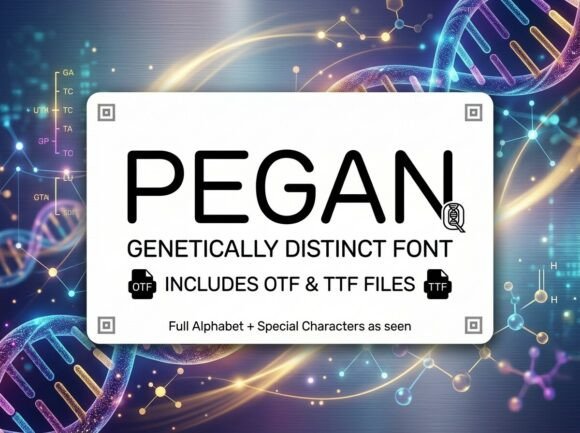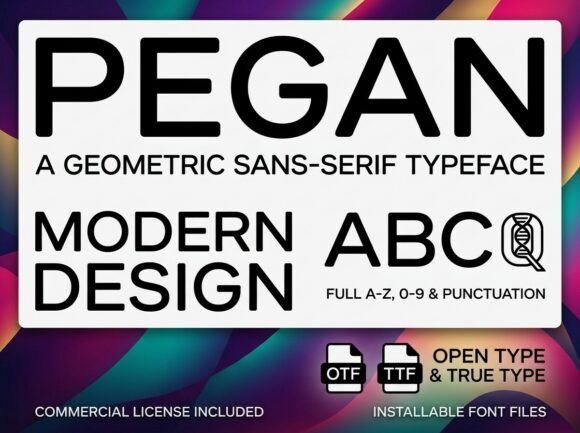
Introduction to Pegan Font
Remember that moment when you’re working on a design project and you just can’t seem to find the perfect font to capture the essence of your idea? The struggle is real, but what if I told you that there’s a font that’s specifically designed to convey a sense of scientific innovation and high-tech sophistication? Enter Pegan Font, a game-changing typeface that’s about to revolutionize the way you approach your next creative project.
As a designer, you know how crucial it is to have a high-quality design resource that can elevate your work to the next level. Pegan Font is that resource, offering a unique blend of clean, sans-serif letterforms and integrated DNA helix icons and molecular symbols that add a touch of sophistication to any design. Whether you’re working on a pharmaceutical packaging project or a high-impact social media header, Pegan Font is the perfect choice.
Pegan Font Key Features
- High-quality, professional font design ideal for creative projects and design resources.
- Designed to be highly legible and versatile, suitable for a wide range of applications and resolutions.
- Includes multiple font weights and styles, providing flexibility for designers and artists.
- Perfect for designers and artists working on creative projects, offering a unique and stylish design element.
Honest Review: Pegan Font
As a designer, I’m always on the lookout for high-quality design resources to elevate my creative projects. The Pegan Font is one such resource that caught my attention, and I’m excited to share my honest review with you.
What works well: ✨ The Pegan Font offers a sleek and modern design aesthetic that’s perfect for digital and print projects. The font is highly legible, making it an excellent choice for body text and headings. I also appreciate the fact that it comes with a transparent background, allowing for seamless integration with any design element.
Overall impression: The Pegan Font is a solid choice for designers looking for a high-quality, free design resource. While it may not be perfect, its strengths outweigh its weaknesses, making it a valuable addition to any design library.
- High-quality design aesthetic
- Legible and versatile
Pegan Font
The Pegan Font is a versatile design resource perfect for creative projects. It’s available for free download and features a high-quality, transparent background that makes it easy to incorporate into your design.
Tips for Getting the Most Out of Pegan Font
To get the most out of Pegan Font, use it in combination with other design elements, such as graphics and images. You can also experiment with different font sizes and colors to create a unique visual effect.
The Pegan Font is suitable for a variety of design projects, including:
- Websites and web applications
Alternatives to Pegan Font
Oswald is a popular sans-serif font that is ideal for creative projects requiring a modern and clean look. It is available for free download and is often used for headings and titles. Oswald has a transparent background, making it perfect for overlaying text on images or other design elements. It is a high-quality font that is suitable for various design resources.
Compared to Pegan Font, Oswald has a more geometric and modern feel, making it ideal for projects that require a clean and minimalist look. While Pegan Font is more elegant and sophisticated, Oswald is more versatile and can be used in a wide range of creative projects.
Lato is a sans-serif font that is designed to be highly legible and versatile. It is available for free download and is often used for body text and captions. Lato has a transparent background and is a high-quality font that is suitable for various design resources. It is ideal for creative projects that require a modern and clean look.